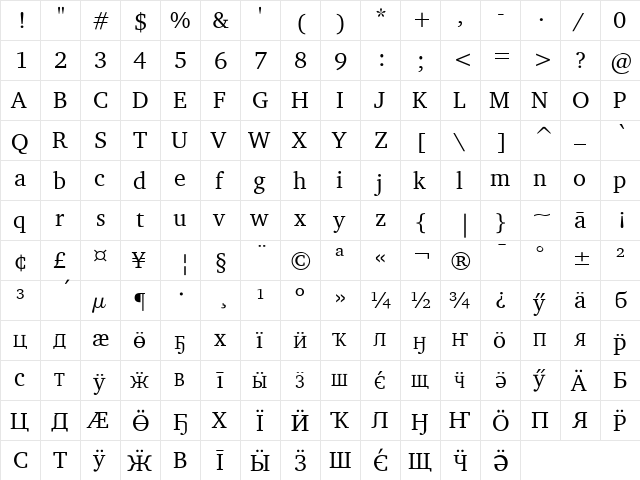
LeedsCyr Koi8_3 Normal
Design Context for LeedsCyr Koi8_3 Typeface
LeedsCyr Koi8_3 offers clean, dependable letterforms without strong stylistic allegiance, making it a practical choice for designers who need flexibility.